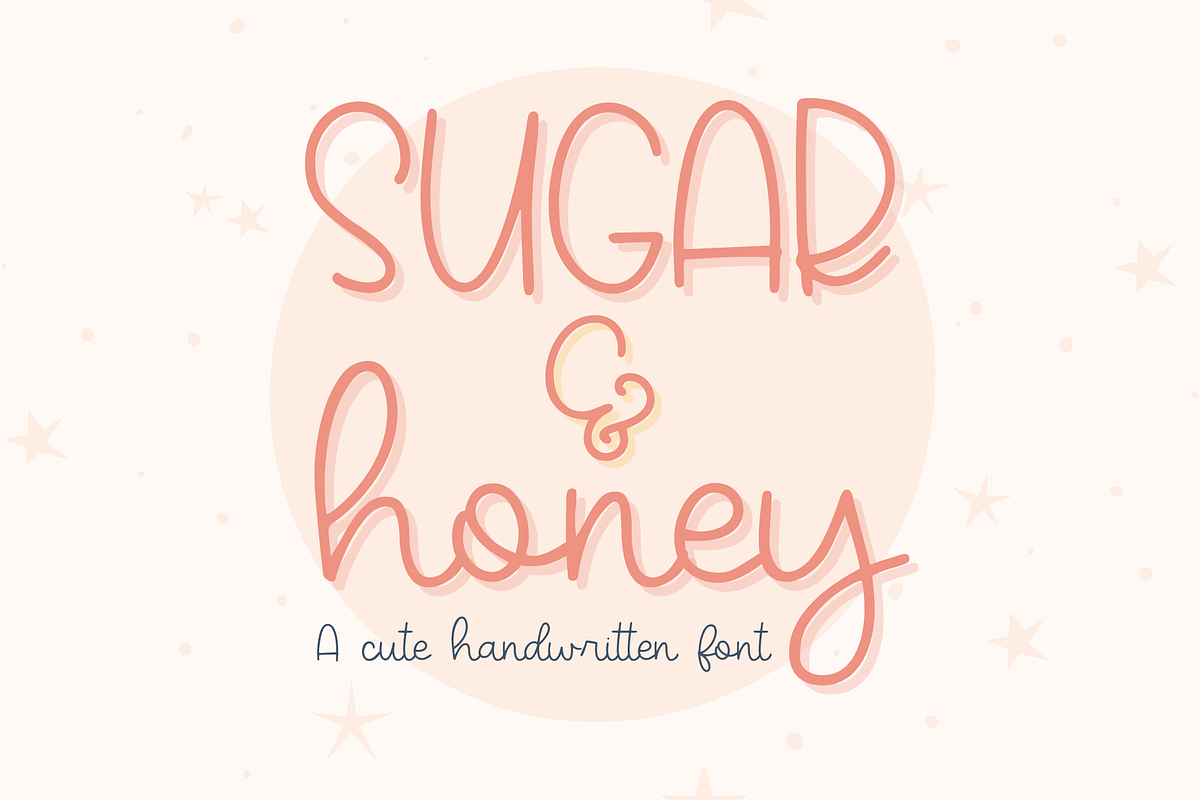
Sugar & Honey, Cute Handwritten Font Free Download is a charming and playful handwritten typeface that exudes sweetness and warmth. With its soft, flowing strokes and rounded letterforms, this font is perfect for designing logos, greeting cards, invitations, social media graphics, and any project that needs a personal, lighthearted touch.
Sugar & Honey, Cute Handwritten Font Free Download brings a friendly, approachable vibe to your typography, making it ideal for projects that aim to feel inviting and whimsical. Whether you’re designing for a children’s brand, creating a cute event invitation, or adding a personal touch to your content, this font brings charm and creativity to your work. Download it today and sweeten up your designs with Sugar & Honey!